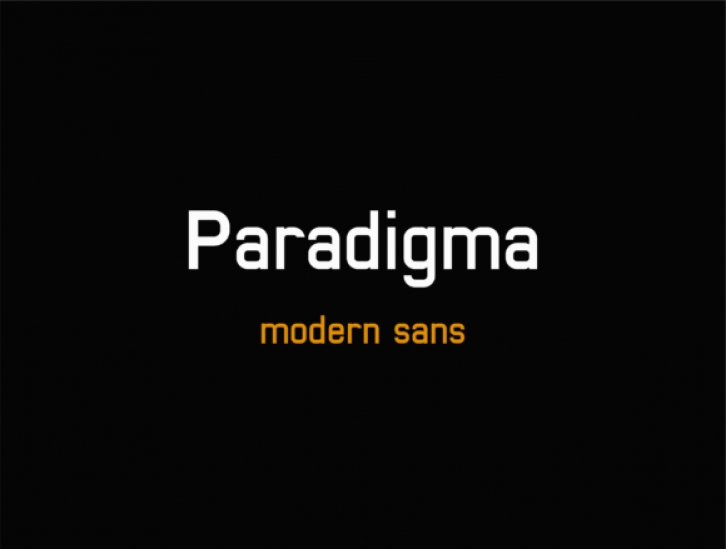
Paradigma is a minimal, neat and clean sans serif font. It can easily be matched to an incredibly large set of projects, so add it to your creative ideas and notice how it makes them stand out!